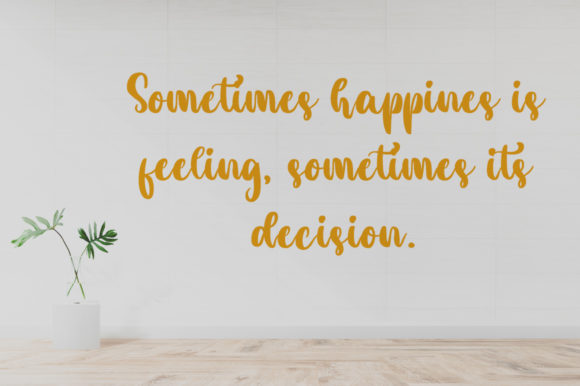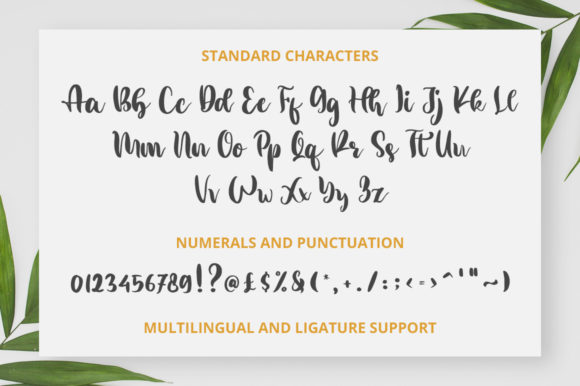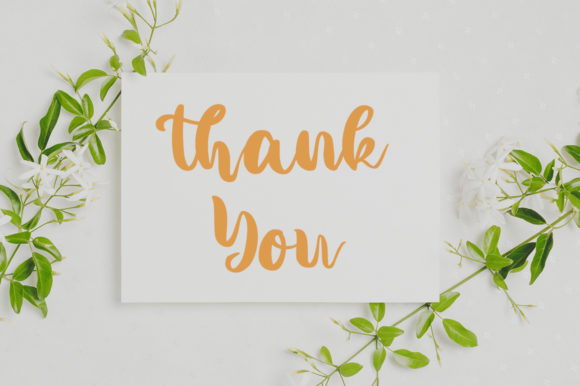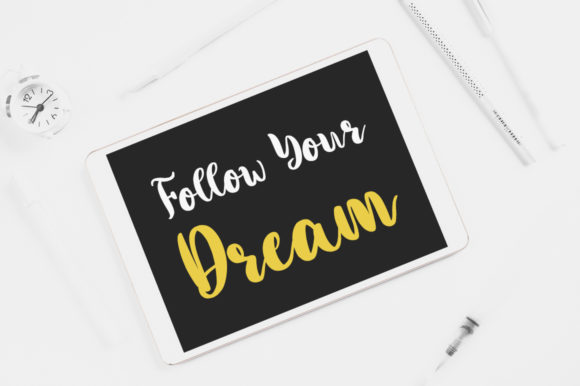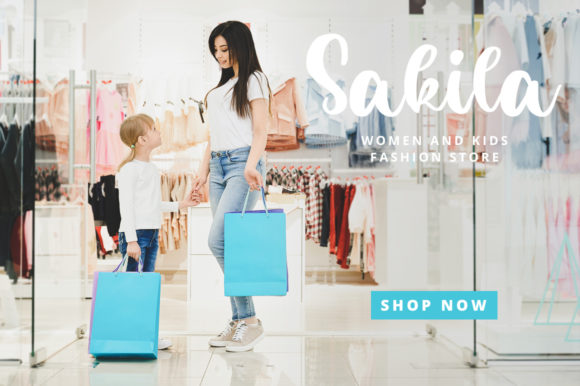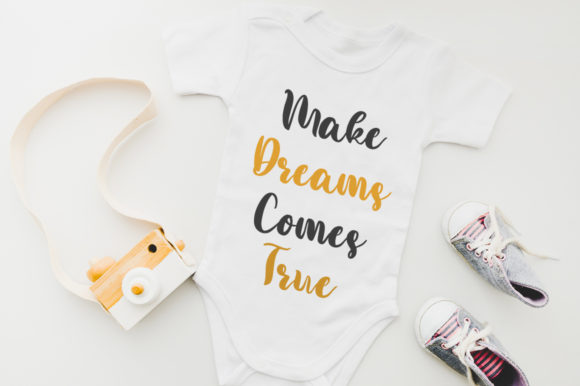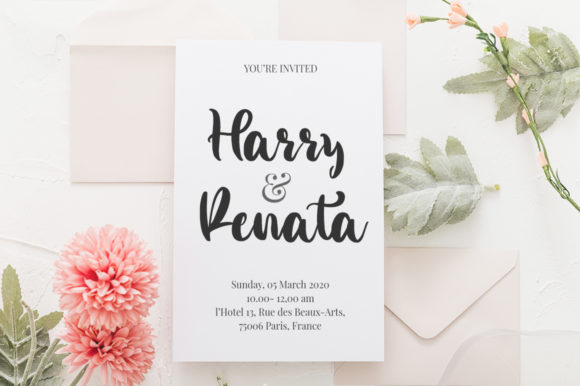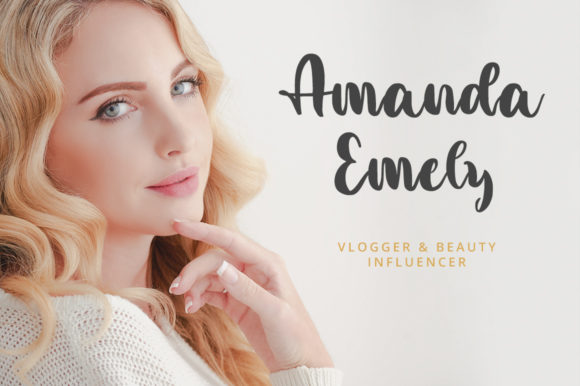
Better Weather Font
About Better Weather Font
Better Weather is a flowing handwritten font, described by an elegant touch, perfect for your favorite projects. Fall in love with its incredibly distinct and timeless style and use it to create spectacular designs!